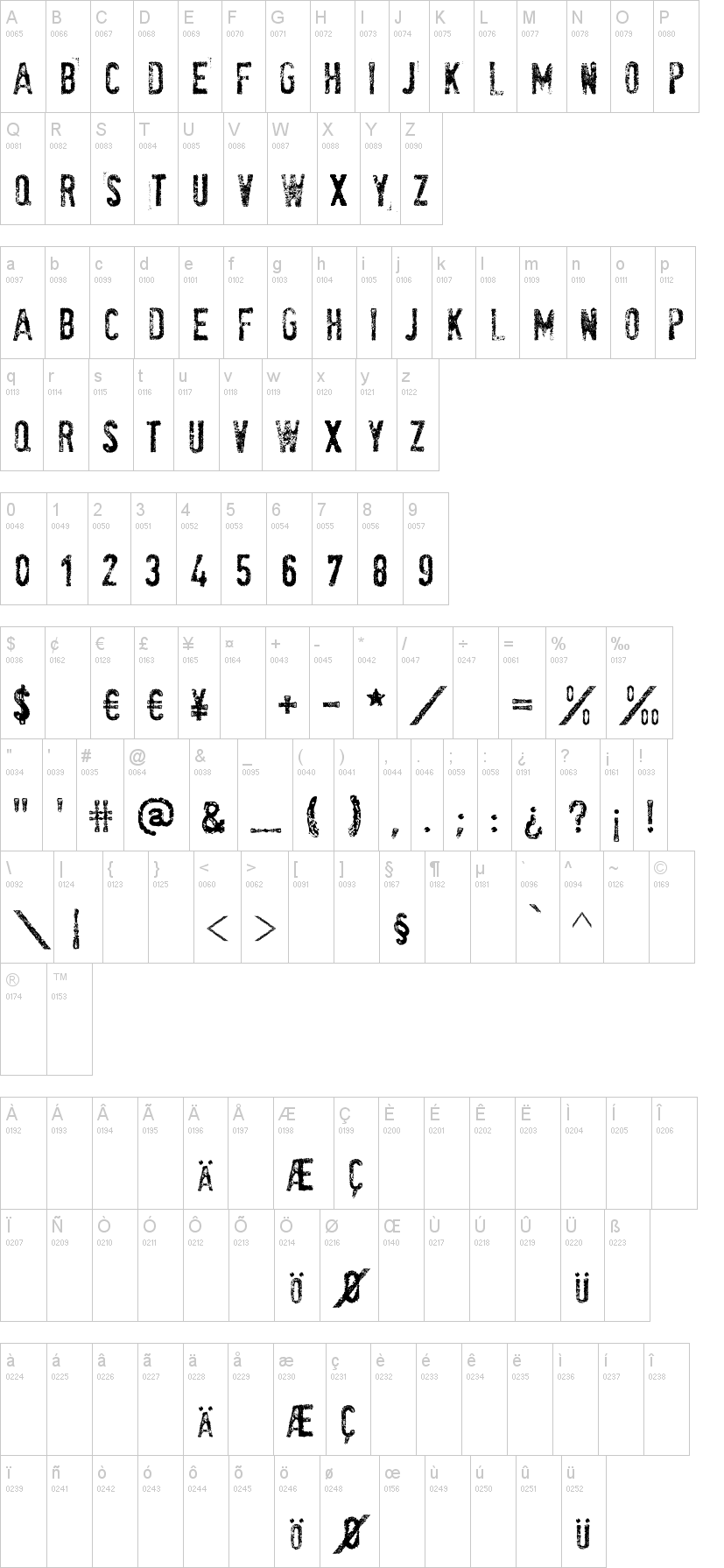
Шрифт SociaL AnimaL
I created this font for my band which has the same name as the font, or the other way around. I made it from rubber stamp letters. Hope you like the way I kerned them! Here's version 2.0!